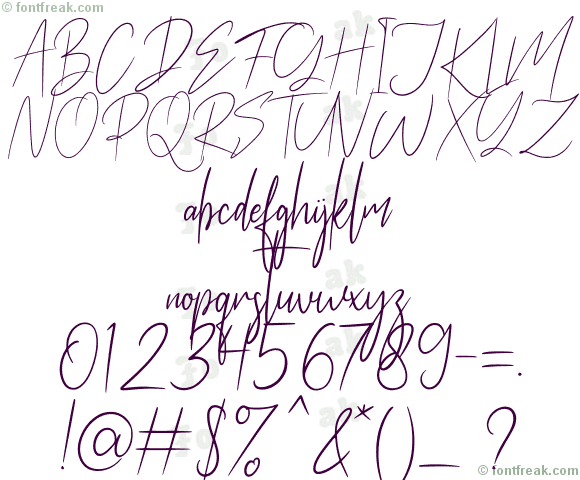
Mastherikur
Mastherikur is a captivating display font designed by Abas Creative, released in 2020 as freeware. This font falls into the decorative category, showcasing a unique blend of artistic flair and elegance that makes it a standout choice for various creative projects. The visual characteristics of the Mastherikur font include a gentle stroke weight that varies, creating a pleasing contrast that adds depth and dimension. Its fluid lines and graceful curves contribute to a sense of sophistication and charm, while the spacing is thoughtfully designed to enhance readability without sacrificing style.
Mastherikur is ideal for a range of applications. Its whimsical yet refined aesthetic makes it perfect for wedding invitations, where it can convey romance and elegance. Additionally, it works beautifully for movie posters, lending a touch of drama and intrigue to film titles. Restaurant menus can benefit from this font, as it adds a distinctive touch that enhances the dining experience. Furthermore, content creators looking to elevate their branding or social media posts will find Mastherikur a valuable tool for capturing attention and creating memorable visuals.
The target audience for this font includes graphic designers, small business owners, and content creators who seek to make a lasting impression with their work. The versatility of Mastherikur allows it to adapt to various themes and styles, making it an essential addition to any designer's toolkit.
What sets the Mastherikur font apart is its ability to combine artistic expression with functionality. Its unique design elements ensure that it stands out in any context, while its readability makes it practical for everyday use. For those looking to enhance their projects, the Mastherikur font free download offers a fantastic opportunity to incorporate this exceptional typeface into their designs.